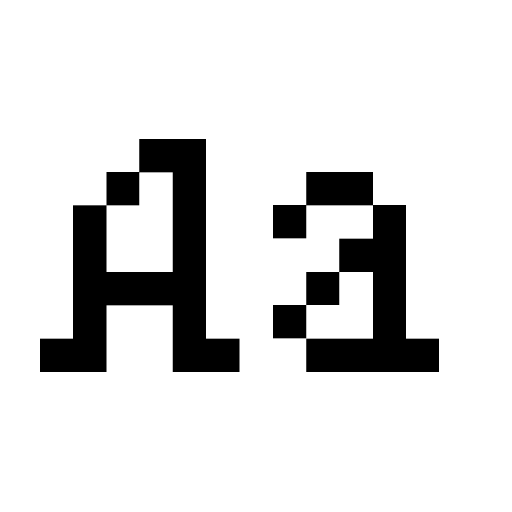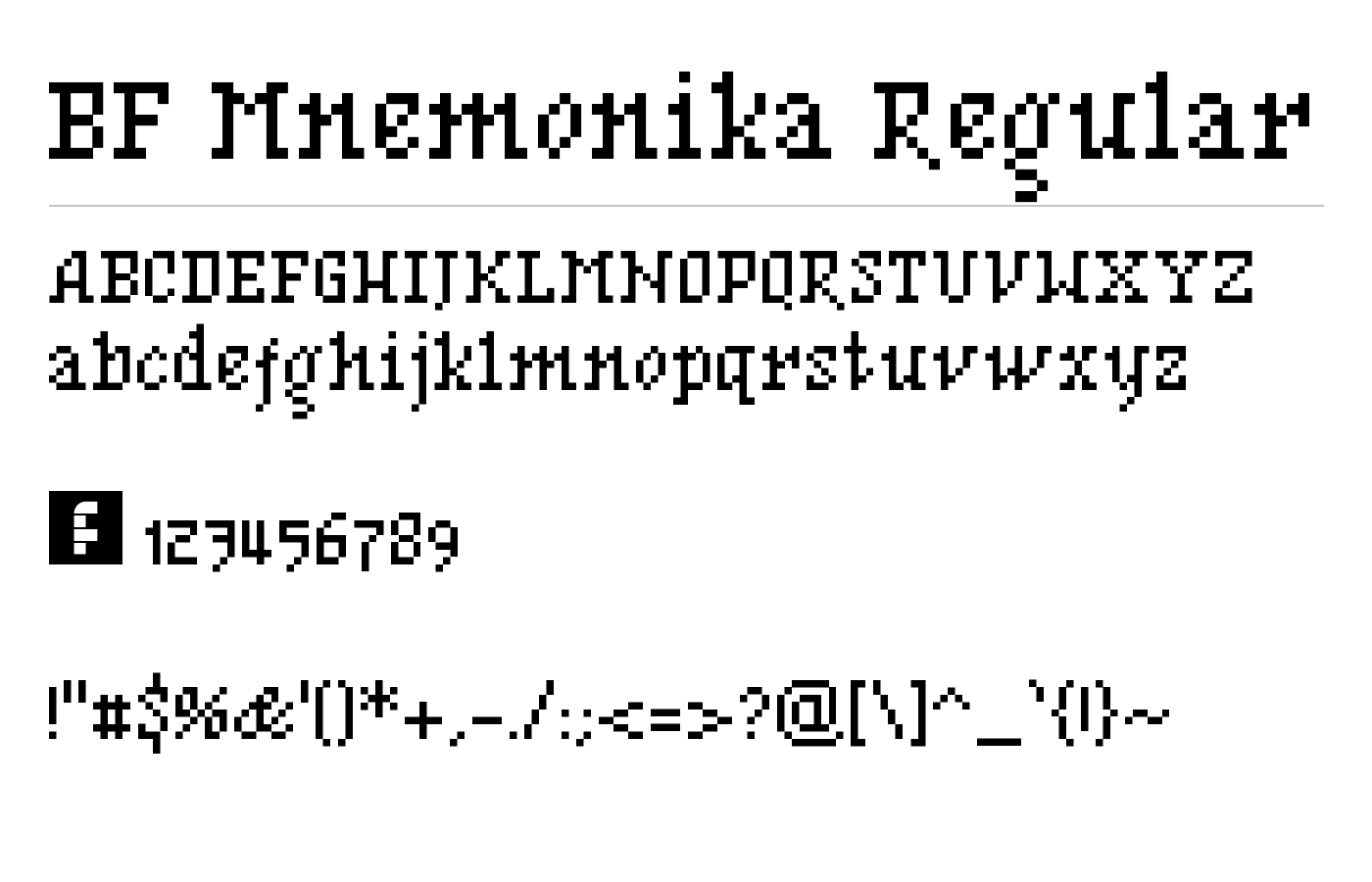
BF Mnemonika Regular is a pixelated slab serif font that combines a blocky, geometric style with vintage computer aesthetics. Its consistent stroke weight and squared, pixel-like serifs make it ideal for retro-themed digital designs, gaming graphics, and tech-inspired branding where a nostalgic yet bold look is desired. This font’s distinctive, monospaced feel also suits creative headlines and playful editorial projects seeking a unique, old-school charm.
BF Mnemonika Regular Font
| Designer | petrzee |